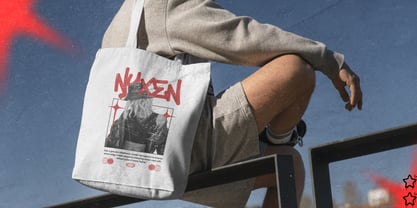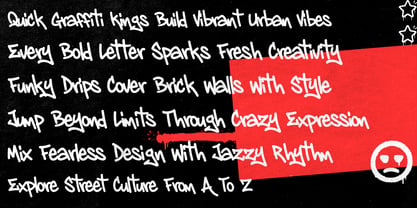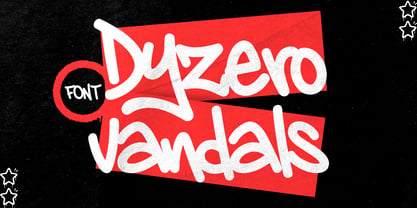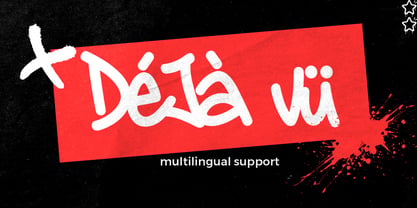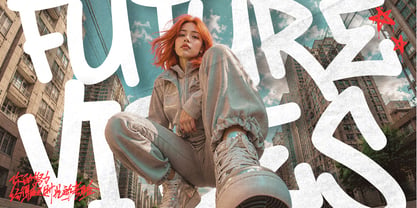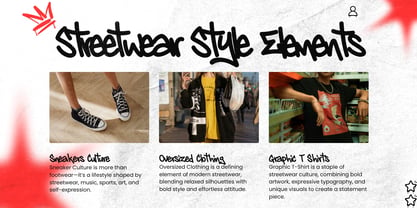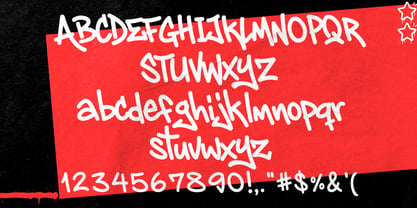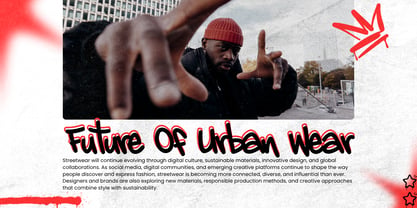
Dyzero Vandals
Dyzero Vandals is a natural handwritten graffiti tagging font designed to capture the spontaneous energy of authentic street lettering. With its loose construction, expressive strokes, irregular rhythm, and raw handmade appearance, this typeface brings the attitude of graffiti tagging directly into modern graphic design. Every character has been shaped to feel naturally drawn rather than mechanically constructed, creating an energetic visual personality that works especially well for bold urban compositions.
Inspired by marker tags, street signatures, hand-painted lettering, and contemporary graffiti culture, Dyzero Vandals delivers a rebellious yet versatile aesthetic. Its organic letterforms allow words to flow naturally while maintaining enough structure for strong visual recognition. The result is typography that feels personal in appearance, expressive in movement, and full of authentic street character.
The font includes uppercase letters, lowercase letters, numbers, punctuation, and multilingual support, giving designers a broad character set for creative projects across different languages and applications. The combination of uppercase and lowercase forms makes it possible to create varied typographic compositions, from aggressive all-cap graffiti headlines to more relaxed handwritten phrases.
Dyzero Vandals is an excellent choice for streetwear branding, t-shirt graphics, graffiti logos, skateboarding artwork, album covers, music merchandise, posters, stickers, labels, packaging, social media graphics, event artwork, fashion campaigns, and urban advertising. It can also add a distinctive handmade touch to quotes, slogans, names, headlines, and short promotional messages.
The natural tagging style works particularly well with spray paint textures, rough concrete surfaces, distressed effects, paint splashes, marker strokes, halftone graphics, chrome effects, and bold color combinations. Designers can create anything from raw underground graffiti artwork to polished contemporary streetwear graphics simply by changing the surrounding visual treatment.
For apparel and merchandise, Dyzero Vandals creates strong statement graphics that immediately communicate street culture. It works especially well on oversized typography, chest prints, back prints, caps, hoodies, stickers, skate decks, and promotional merchandise. Its expressive shapes can also be combined with illustrations, symbols, graffiti characters, and urban textures to create complete visual identities.
Dyzero Vandals is made for designers looking for typography that feels energetic, spontaneous, imperfect, and unmistakably urban. Whether you're creating a graffiti-inspired logo, streetwear collection, music artwork, skateboard graphic, poster, or social media campaign, this font brings a natural tagging attitude and handcrafted visual character to every word.